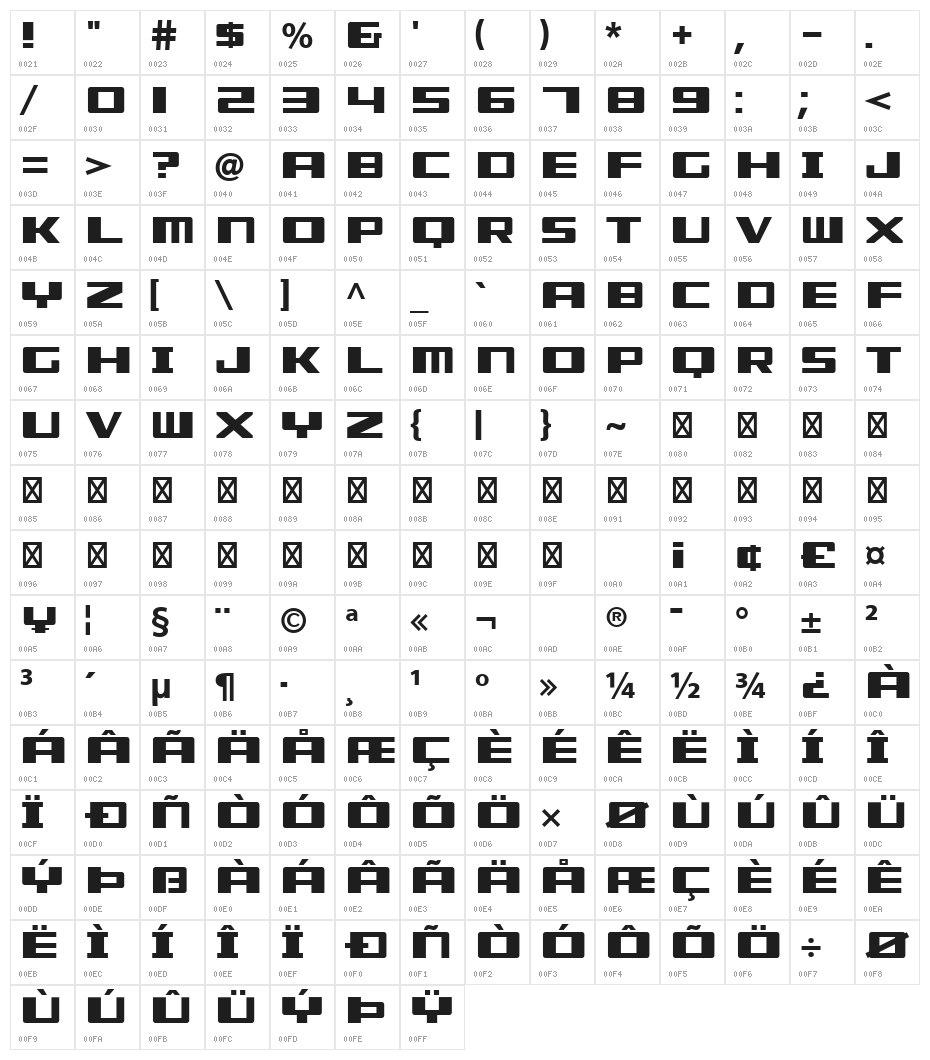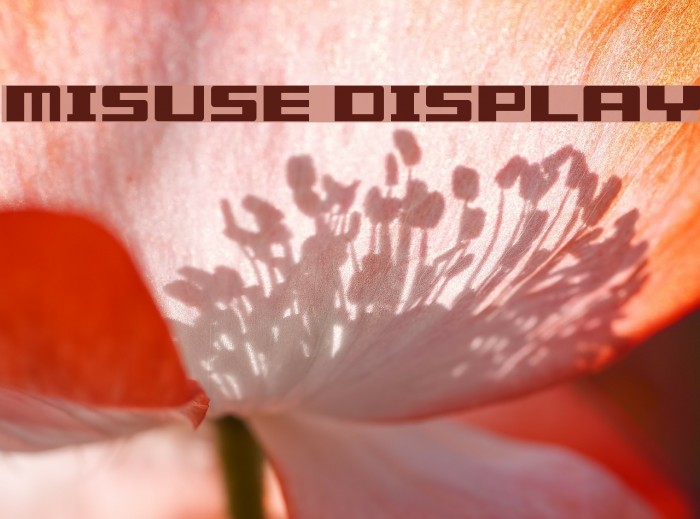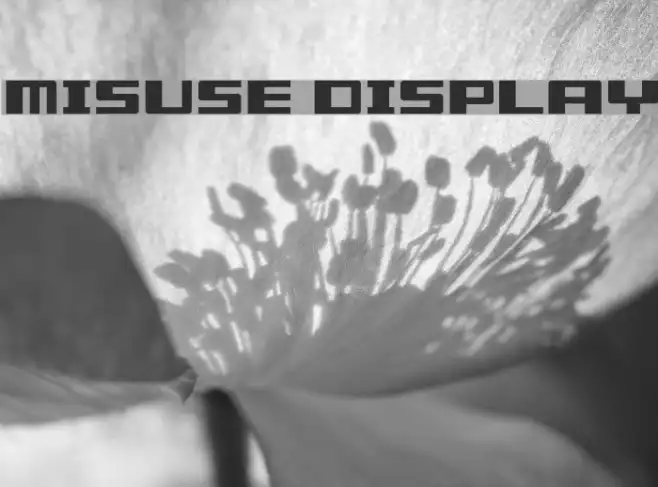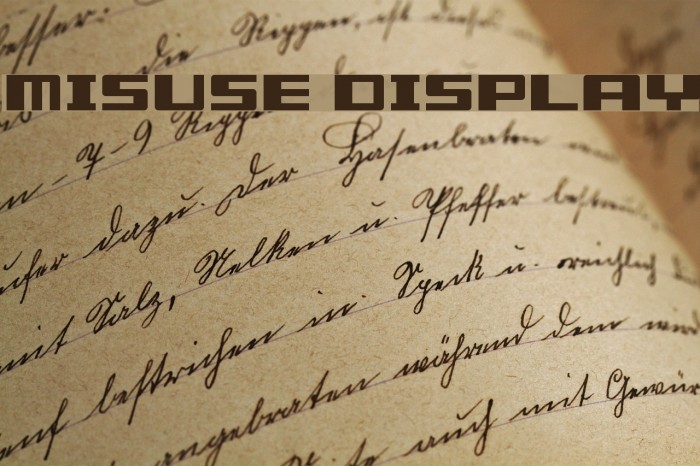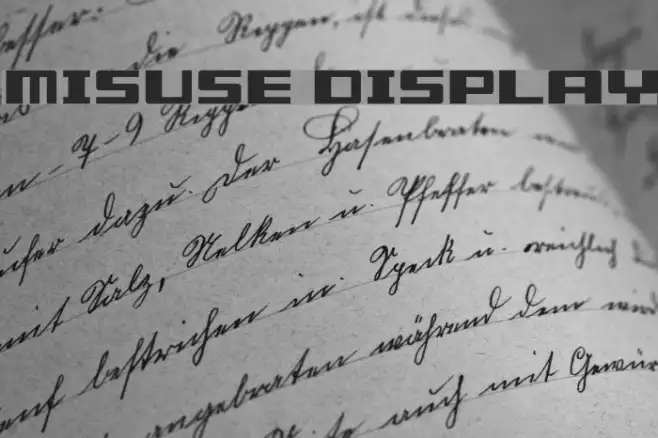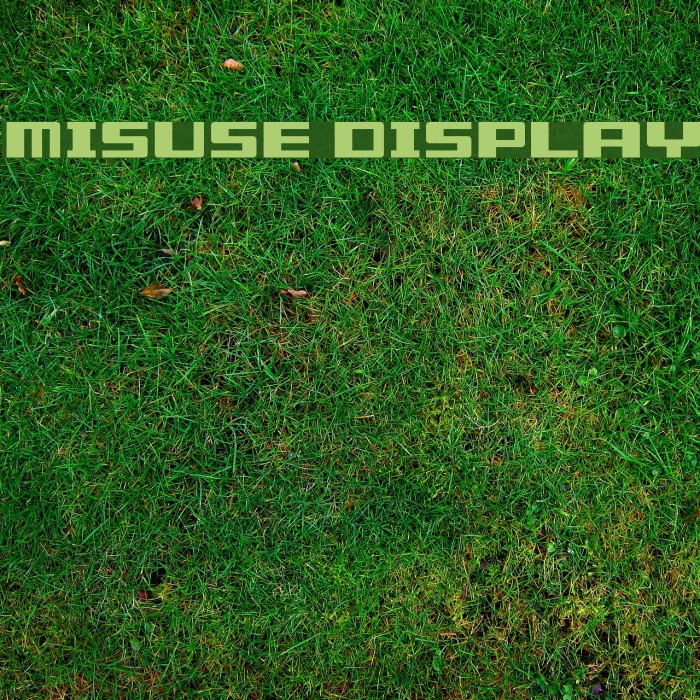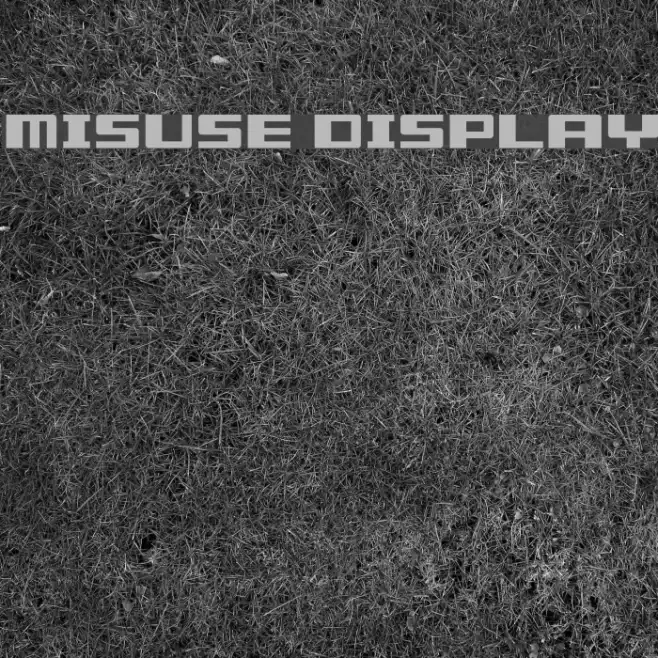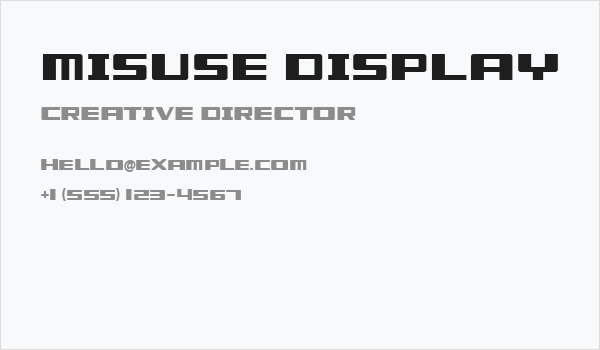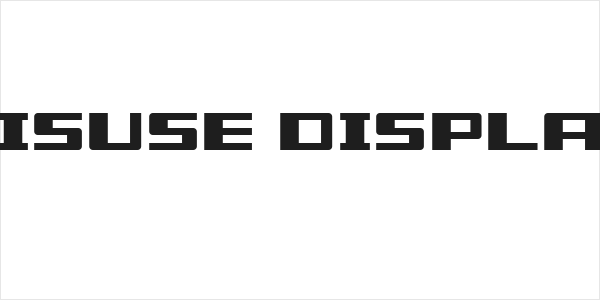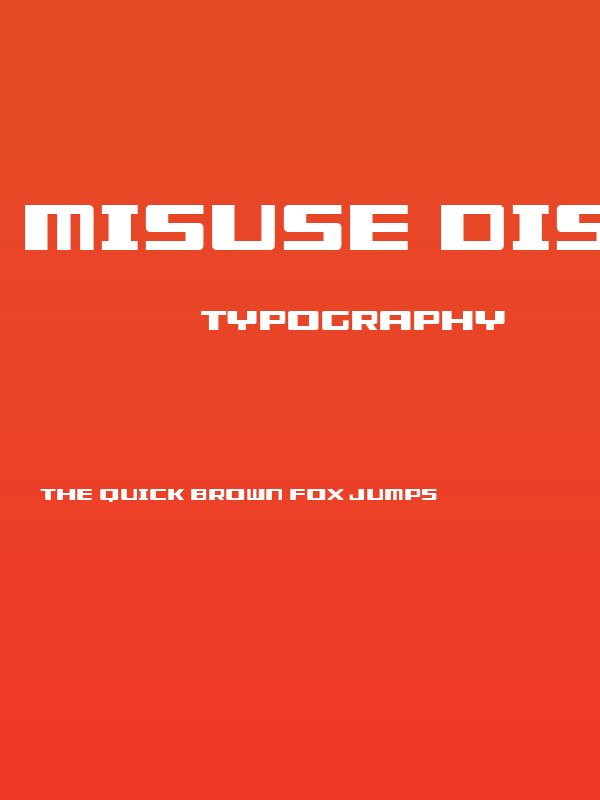
Misuse Display Font
Misuse Display Description
This font features a bold, geometric style with strong, angular lines and a futuristic aesthetic. The characters are uniformly wide, creating a blocky appearance that is both modern and assertive. The uppercase and lowercase letters maintain a consistent height, contributing to a cohesive and structured look. The numerals and special characters are designed with the same boldness and angularity, ensuring visual harmony across all glyphs. This font's distinct style makes it ideal for attention-grabbing headlines and impactful designs.
| Proposed Projects | Ideal for sci-fi themed designs, video game titles, tech branding, and modern posters. |